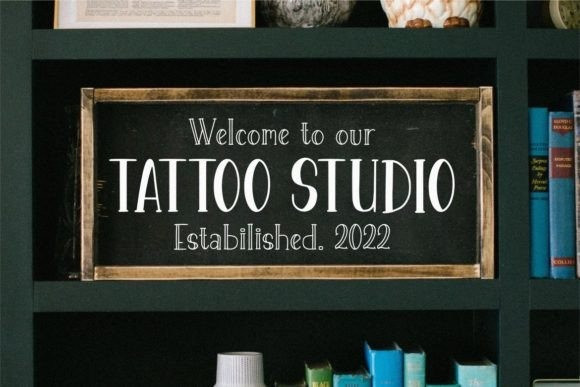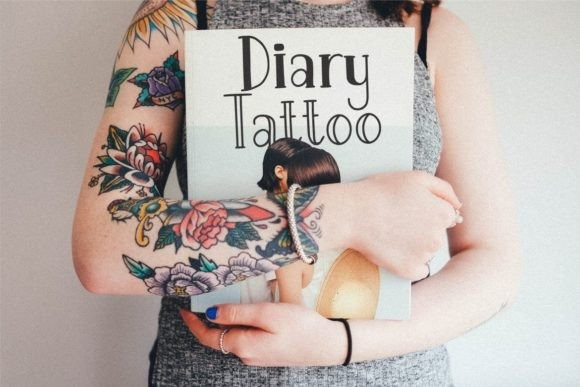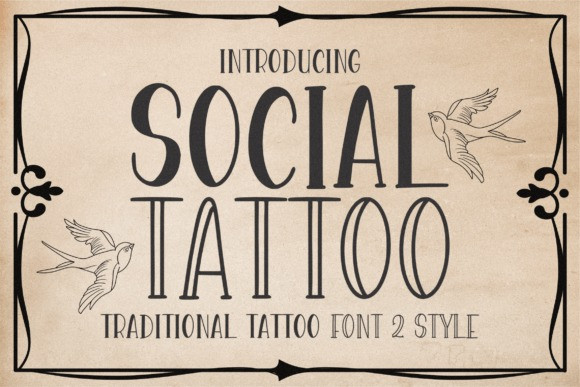
Social Tattoo Font
Social Tattoo Display Font is a Traditional Tattoo display Font.
Social Tattoo is perfect for product packaging, branding project, magazines, social media, weddings, or just used to express words above the background.